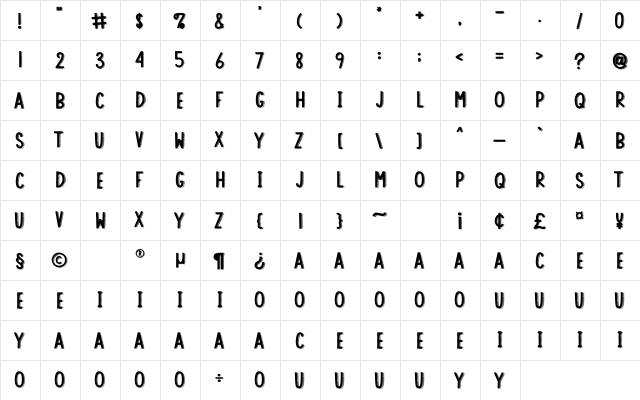
SUNRISE CRESSDA Regular Font Preview
SUNRISE CRESSDA Regular
SUNRISE CRESSDA Regular Font Details
| Designer | The Docallisme |
Design Context for SUNRISE CRESSDA Typeface
SUNRISE CRESSDA offers clean, dependable letterforms without strong stylistic allegiance, making it a practical choice for designers who need flexibility.